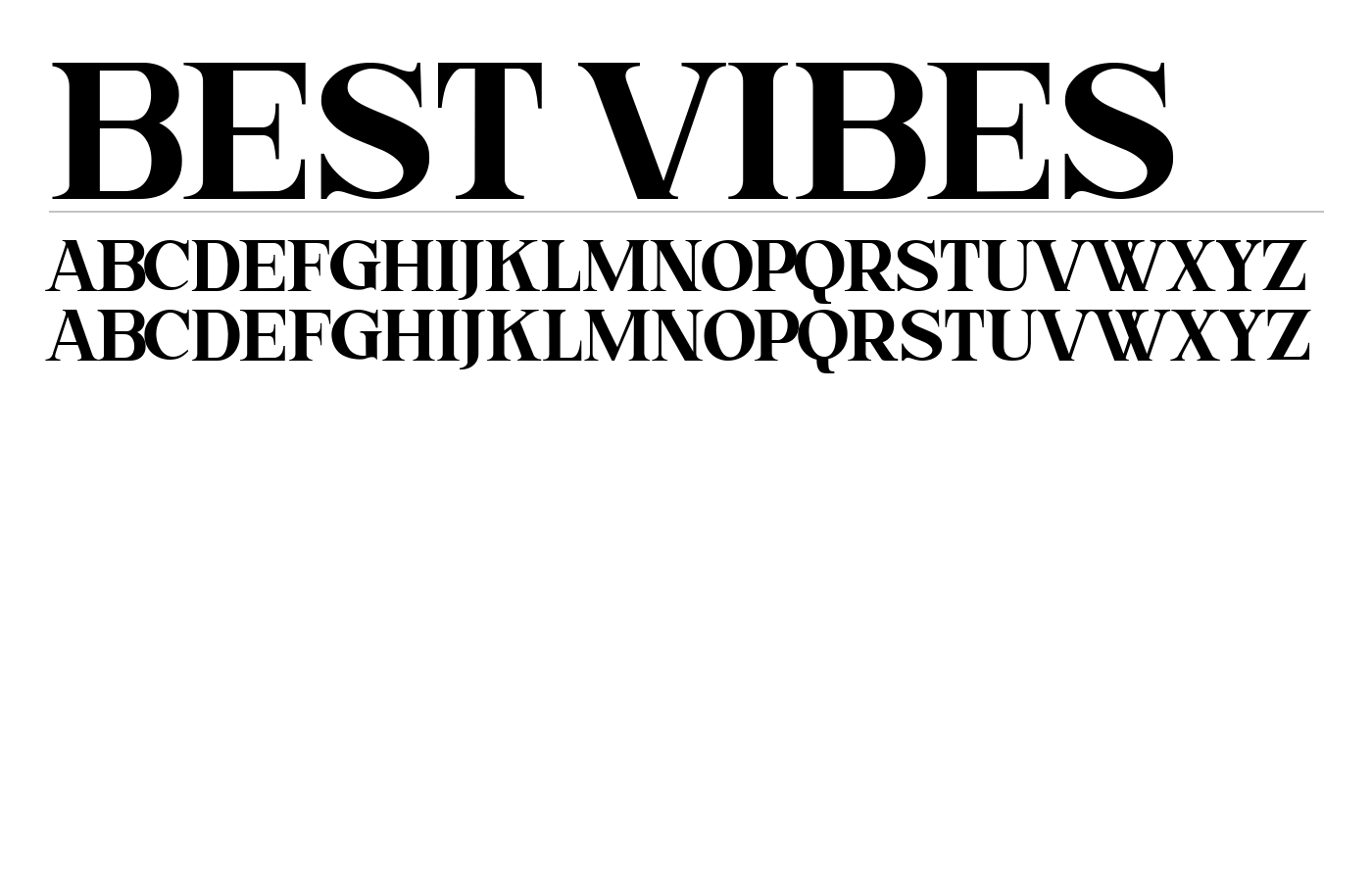
Best Vibes Font is a bold, elegant serif typeface with strong contrast between thick and thin strokes, giving it a refined and classic appearance. Its tall, narrow letterforms and sharp, bracketed serifs make it perfect for luxury branding, headlines, and editorial design where a sophisticated and timeless vibe is desired. This font works well to convey professionalism and style, making it ideal for fashion, high-end products, and impactful visual statements.
Best Vibes Font
About Best Vibes Font